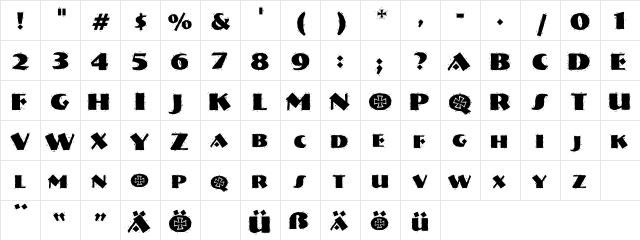
VTNervouzReichRank Regular
Design Context for VTNervouzReichRank Typeface
VTNervouzReichRank is a composed and adaptable typeface that performs quietly and consistently across a wide range of design contexts.